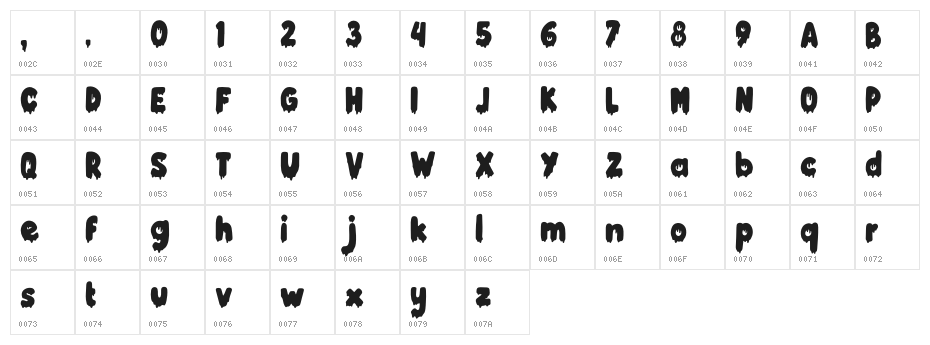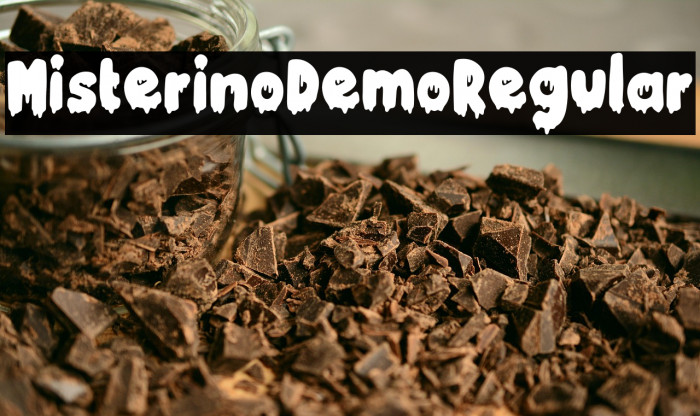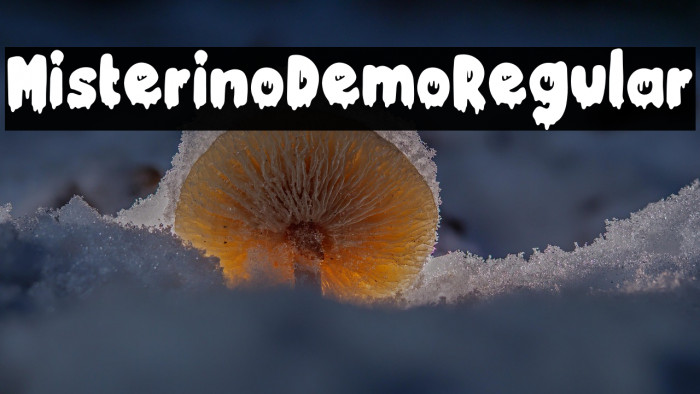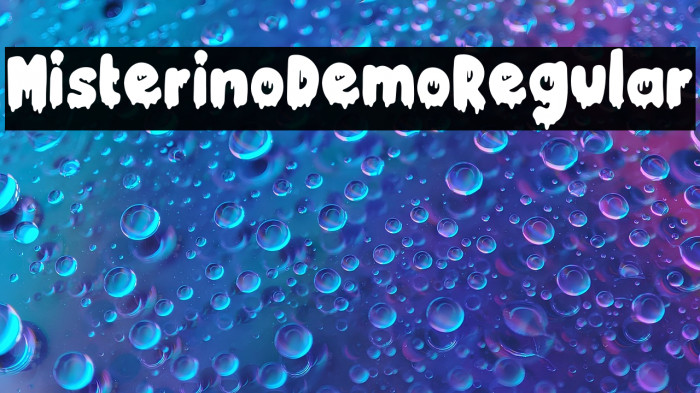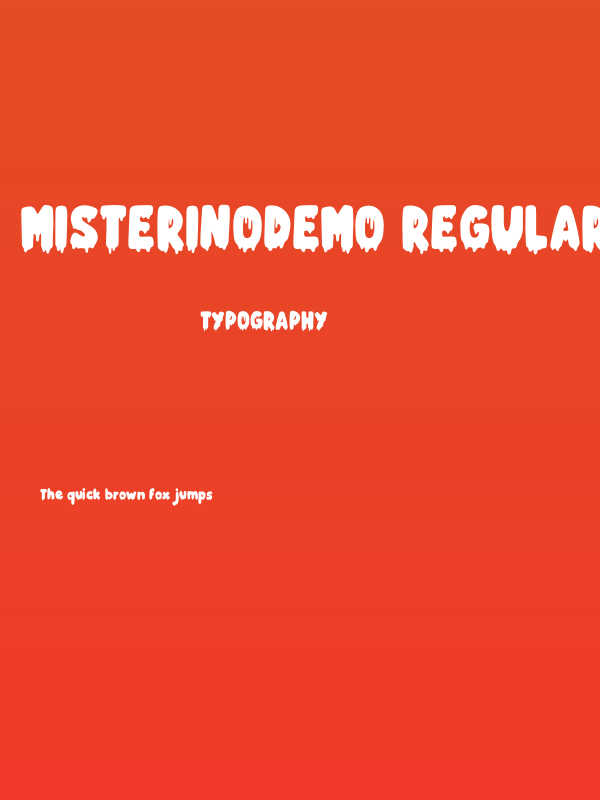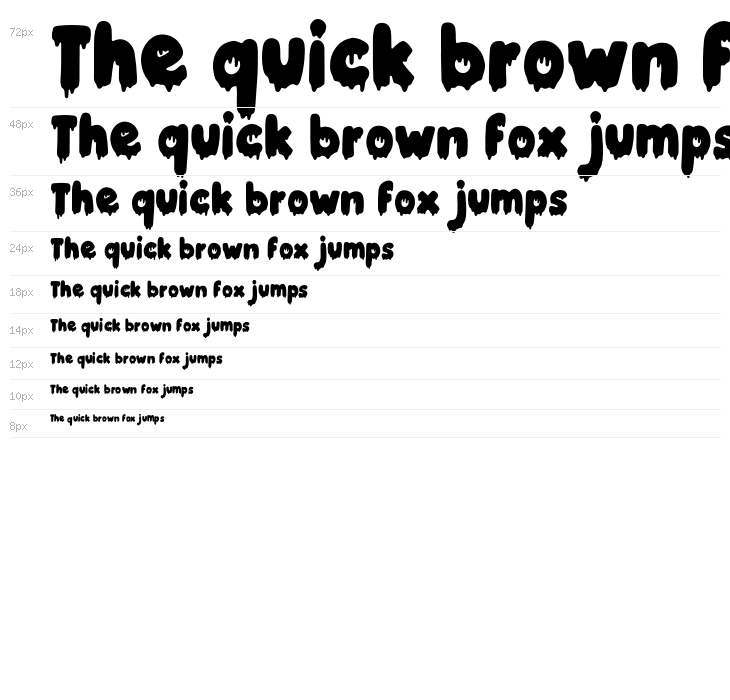
MisterinoDemo-Regular Font
MisterinoDemo-Regular Description
This font features a playful and spooky design, with characters that appear to be dripping or melting. The bold, rounded letters have a unique, irregular shape that adds to the eerie and fun aesthetic. The uppercase and lowercase letters maintain a consistent style, with the numbers and special characters following suit. This font is perfect for Halloween-themed projects or any design that requires a quirky, eye-catching typeface.